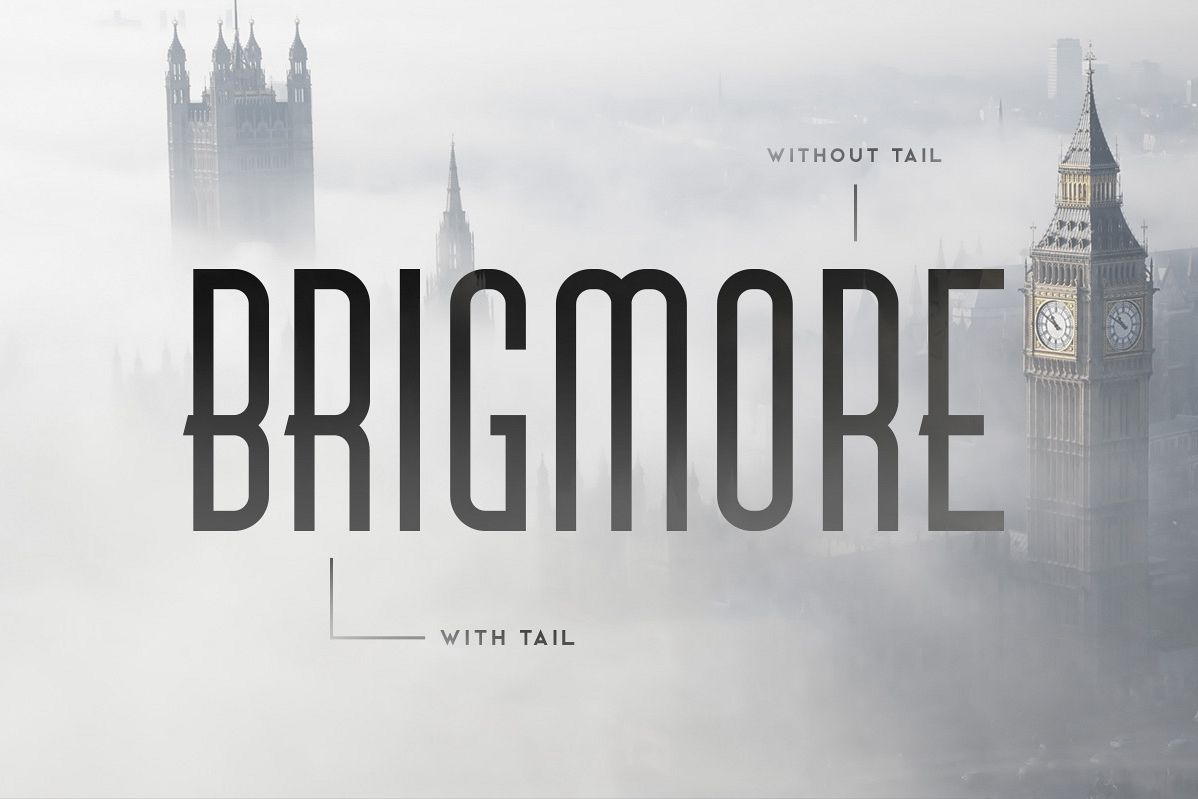
Brigmore Typeface
Brigmore is an art deco themed typeface that's great for headlines. It comes in three weights and includes multilingual uppercase letters, alternate letters, numbers and punctuation. You can toggle the alternate letters with Caps Lock.